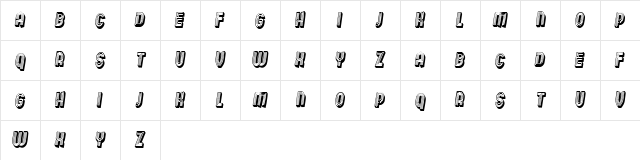
Wooden Planks BoldItalic
Design Context for Wooden Planks Typeface
Wooden Planks echoes the hand-painted signage and woodblock typography of the American frontier, with a warm, rugged personality. The slanted form adds forward momentum and visual energy. The heavy weight commands attention and anchors typographic hierarchies.
A natural fit for craft spirits, ranch branding, rodeo events, and Americana-inspired design work.
Font Pairing: Combine Wooden Planks with a simple slab or neutral sans — period-accurate companions reinforce the vintage feel without competing for attention.
Pro Tip: Use Wooden Planks for short, impactful bursts of text — it shines in poster headlines and product names rather than extended copy.